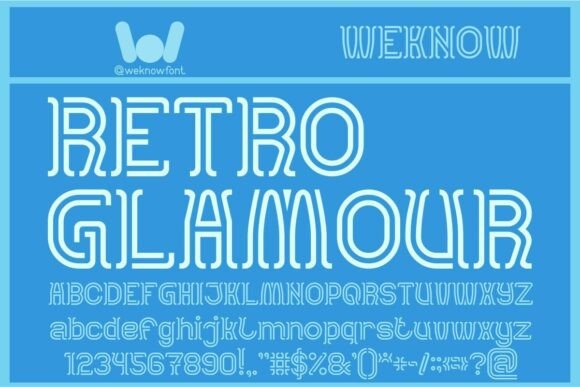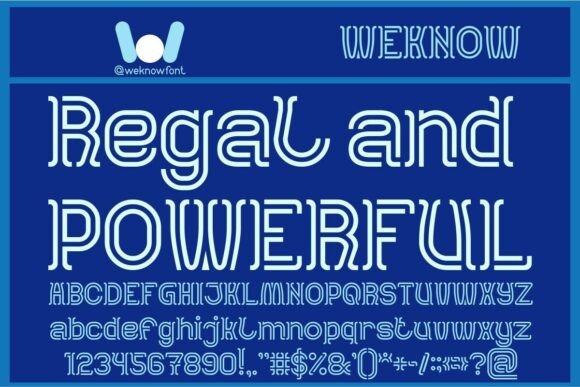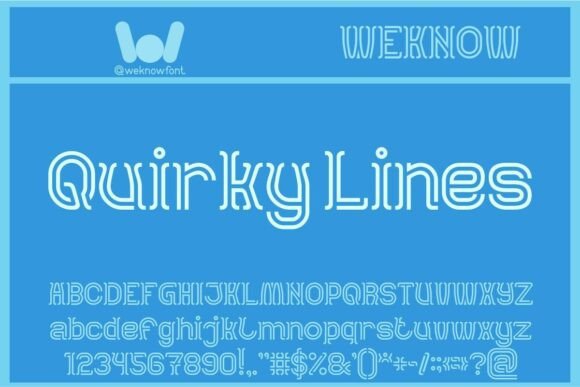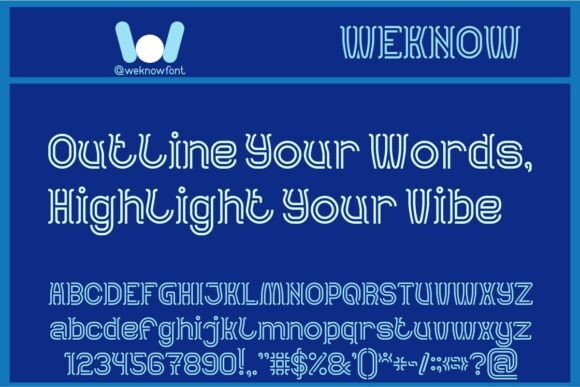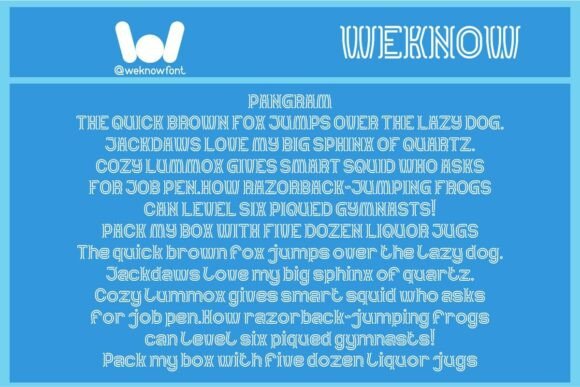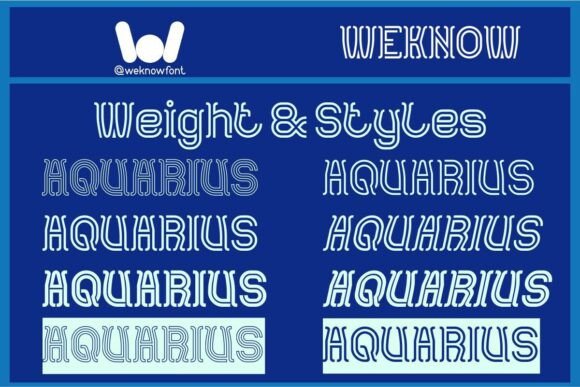
Aquarius Font: The Ultimate Retro-Futuristic Design Masterpiece
Welcome to the world of Aquarius Font, where the past and future merge in a stunning design that will elevate your creative projects to new heights. This exceptional font is a masterpiece of retro-futuristic shapes with an artistic nod to the sophisticated curves of Art Deco, making it the perfect choice for designers and crafters looking for a unique and elegant typography solution.
The Art of Retro-Futurism
Aquarius Font is a design marvel that effortlessly blends the nostalgic charm of retro-futurism with the sleek, modern aesthetic of contemporary design. The result is a font that exudes refined elegance and sophistication, perfect for enhancing logos, logotypes, and headlines. With its alluring outline display, Aquarius Font adds a touch of glamour and luxury to any design project, making it an ideal choice for high-end brands and creative professionals.
Unleash Your Creativity with Aquarius
Aquarius Font is an incredibly versatile design tool that can be used across a wide range of mediums and industries. Whether you’re working on a corporate identity project, a fashion brand, or a creative endeavor such as music, movies, games, or publishing, Aquarius Font is the perfect choice. Its geometric charm and sophisticated curves make it an excellent fit for:
- Logos and logotypes
- Headlines and titles
- Apparel and fashion design
- Music and movie posters
- Game design and development
- Magazines and books
- Comic and cartoon creations
- YouTube and Instagram typography
- Website design
Why Choose Aquarius Font?
So, what sets Aquarius Font apart from other design solutions? Here are just a few reasons why designers and crafters love working with this exceptional font:
- Unique Retro-Futuristic Style: Aquarius Font boasts a distinctive retro-futuristic design that adds a touch of nostalgia and sophistication to any project.
- Art Deco Inspiration: The font’s artistic nod to Art Deco ensures that it exudes luxury, elegance, and refinement.
- Versatility: Aquarius Font can be used across a wide range of mediums and industries, making it an excellent addition to any design toolkit.
- Ease of Use: With its clean lines and simple design, Aquarius Font is easy to read and use, even at small sizes.
Tips and Tricks for Working with Aquarius Font
To get the most out of Aquarius Font, here are a few tips and tricks to keep in mind:
- Experiment with Colors: Aquarius Font looks stunning in a range of colors, from bold and bright to pastel and subtle. Experiment with different hues to find the perfect fit for your project.
- Play with Sizes: Aquarius Font is designed to be versatile, so don’t be afraid to experiment with different sizes and scales to add visual interest to your design.
- Mix and Match: Combine Aquarius Font with other design elements, such as images and textures, to create a unique and eye-catching design.
In conclusion, Aquarius Font is a design masterpiece that offers a unique and elegant typography solution for designers and crafters. With its retro-futuristic style, Art Deco inspiration, and versatility, this exceptional font is perfect for a wide range of creative projects. Whether you’re working on a corporate identity project, a fashion brand, or a creative endeavor, Aquarius Font is the perfect choice. So why wait? Unleash your creativity and let Aquarius Font make the magic happen!